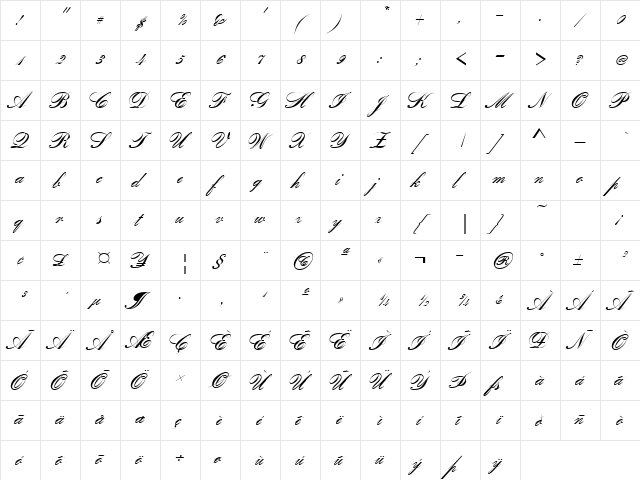
BankScrJoiD Regular Font Preview
BankScrJoiD Regular
BankScrJoiD Regular Font Details
Design Context for BankScrJoiD Typeface
BankScrJoiD is a composed and adaptable typeface that performs quietly and consistently across a wide range of design contexts.